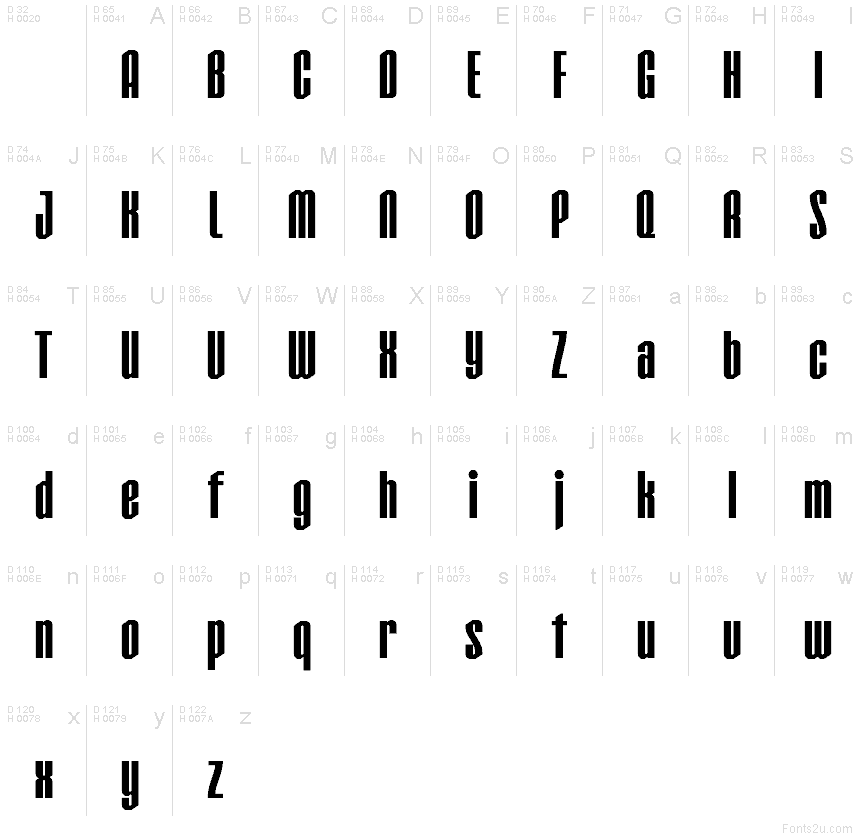
CS Glister Regular Demo
CS Gliste font by Craft Supply Co. wonderfully mixes a sleek, modern appearance with strong presence which makes it hard not to notice. Sharp edges, clean lines, geometric influence, and its condensed width give this retro display style a personality of its own which it easily puts to use.
A free font suitable for headlines and posters where a certain force books are some of its more niche uses.